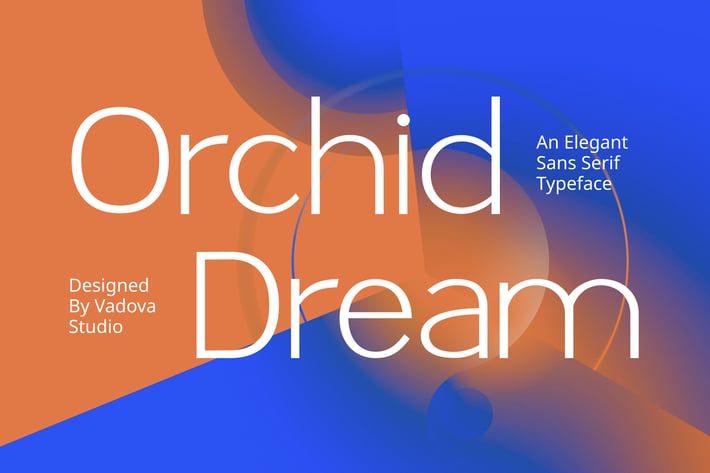
Orchid Dream Elegant Sans Serif Font
Orchid Dream Elegant Sans Serif Font Orchid Dream is an elegant, modern sans-serif typeface designed to infuse your projects with a sophisticated and clean aesthetic. Its intended market vibe leans towards fashion magazines, high-end branding, minimalist websites, and sophisticated social media (Instagram use). The letterforms are characterized by their clean lines and balanced proportions, creating a sense of understated luxury. This font is best used for branding, editorial design, luxury product packaging, and impactful social media graphics.
Tired of generic typography that fails to capture attention? Orchid Dream is the solution you've been searching for. This typeface empowers designers to create captivating visuals that resonate deeply with their audience, transforming ordinary designs into extraordinary brand experiences. It's more than just a font; it's a statement of refined taste and impeccable style, making your design feel essential and unforgettable.
Orchid Dream Elegant Sans Serif Font Suitable for Brand identity, magazine layouts, website design, packaging design, social media graphics, advertising campaigns, corporate presentations, event invitations, poster art, app interfaces, book covers, stationary design, e-commerce websites, branding guidelines, annual reports, digital marketing materials, portfolio websites, fashion photography watermarks, architectural firm branding, luxury goods branding.